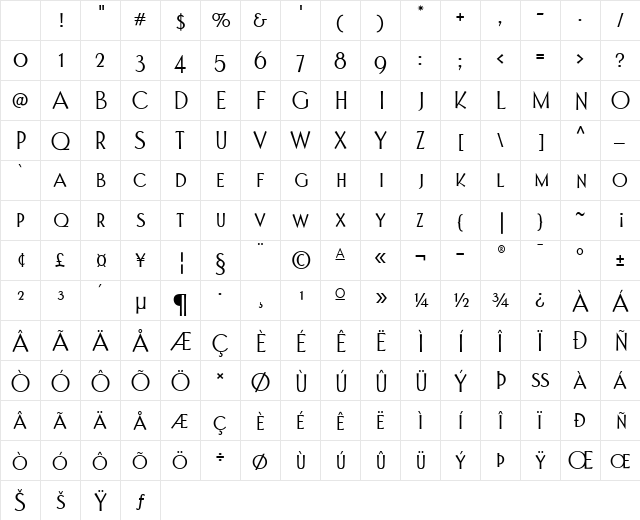
Complete PanoramaSG Regular glyph index. Displaying only characters natively supported by PanoramaSG Regular font.
PanoramaSG is a composed and adaptable typeface that performs quietly and consistently across a wide range of design contexts.